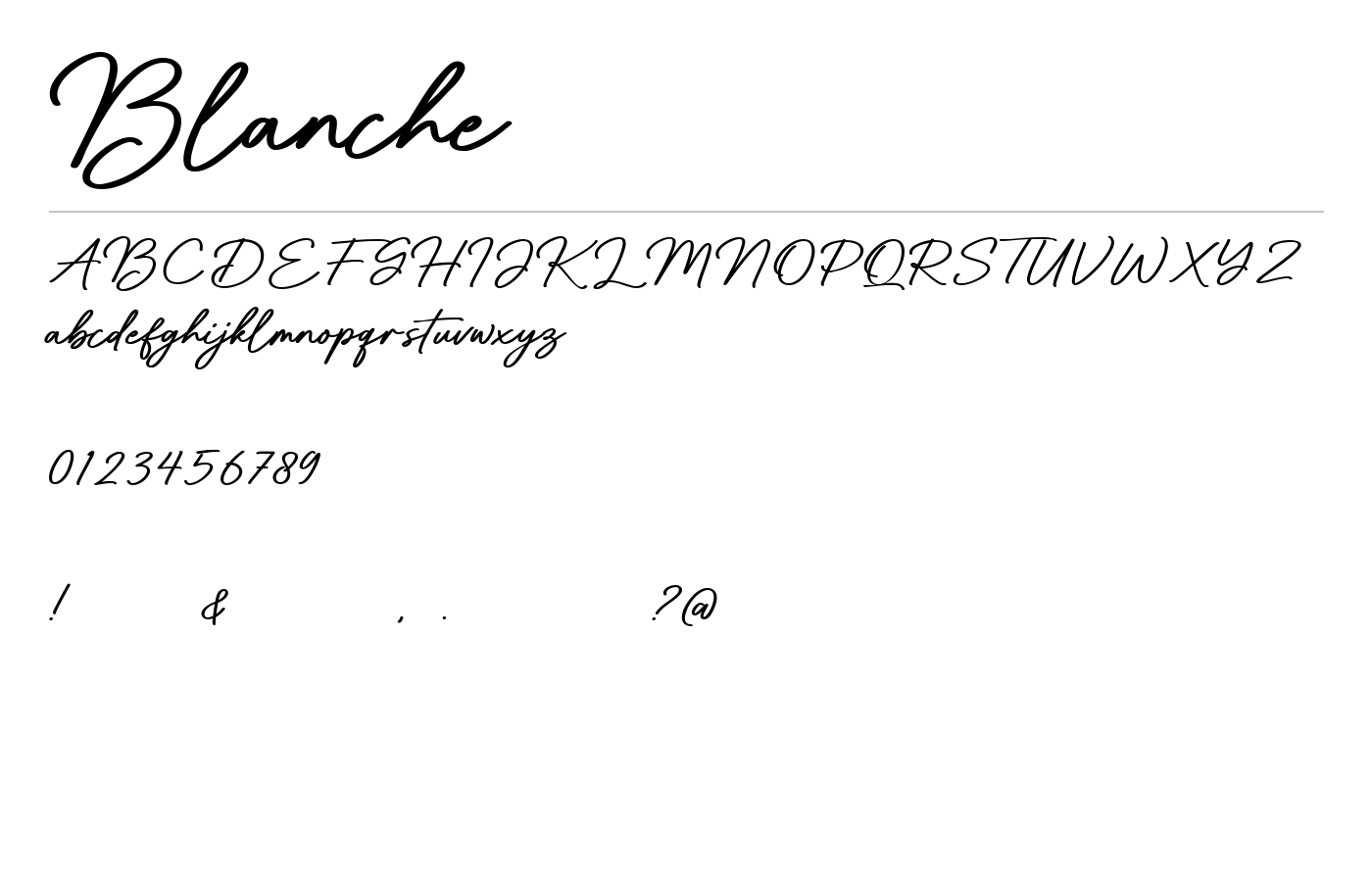
Blanche is an elegant script font with a smooth, flowing style that mimics natural handwriting. Its light weight, moderate contrast, and delicate curves give it a graceful and sophisticated feel, making it perfect for branding, invitations, and feminine design projects that seek a personal yet polished touch. This font works best in logos, headings, and decorative texts where a warm, stylish impression is desired.
Blanche Font
About Blanche Font